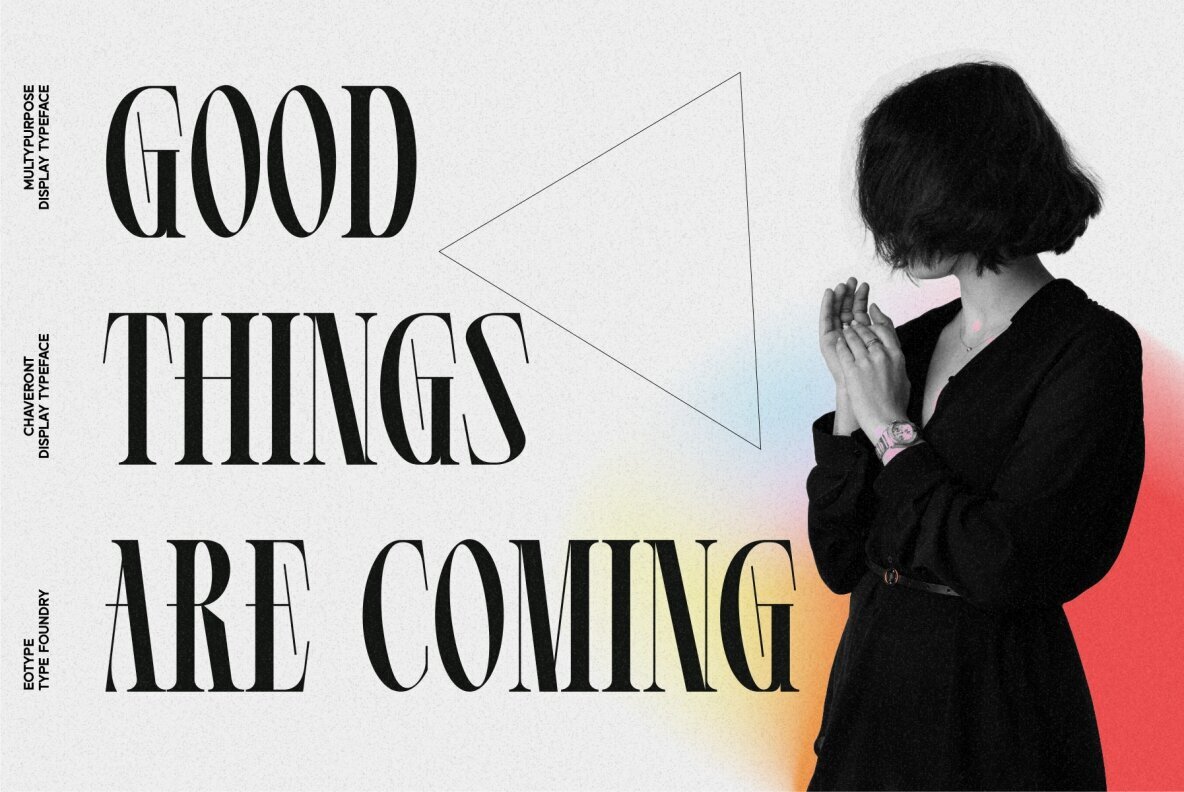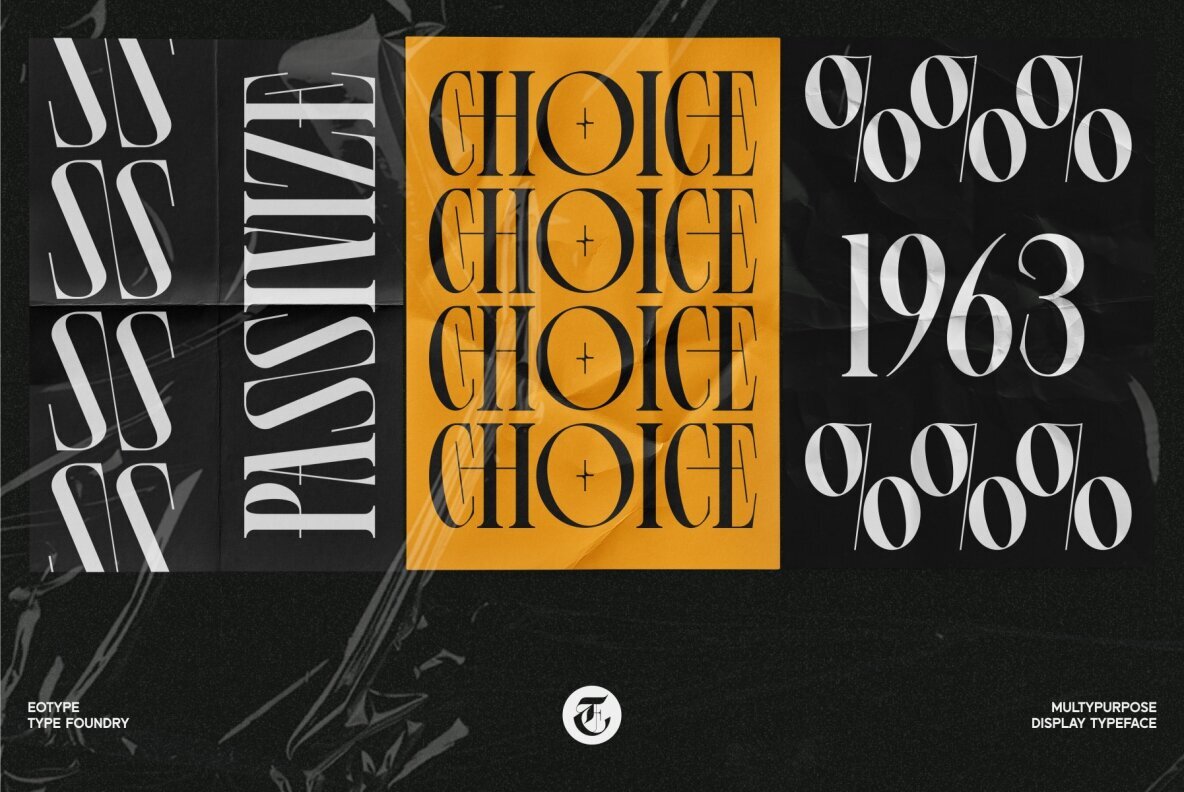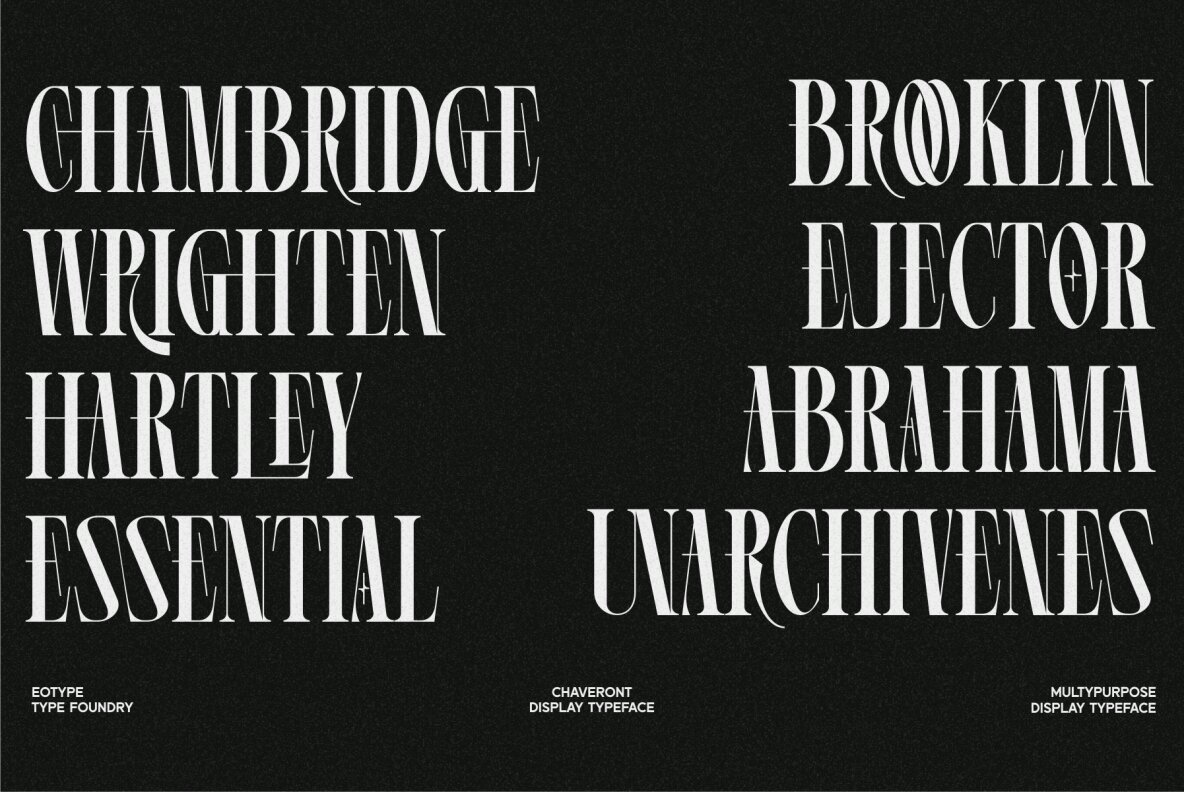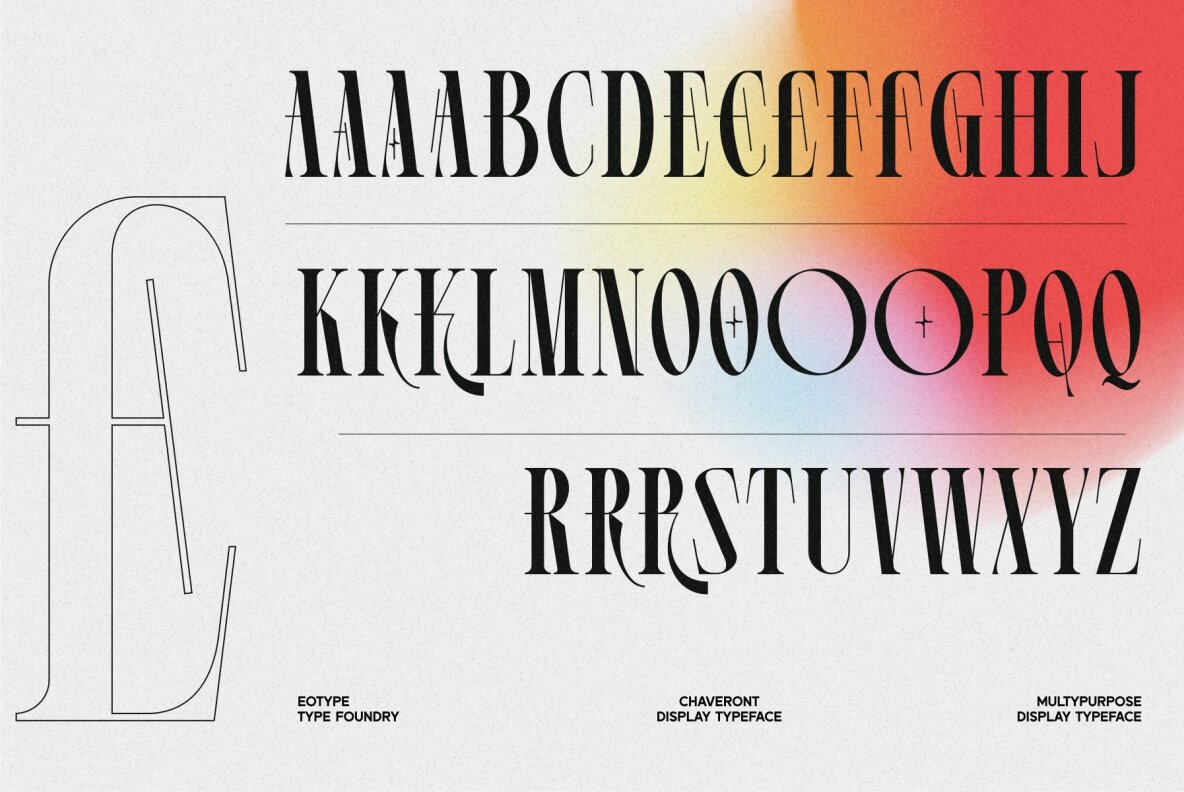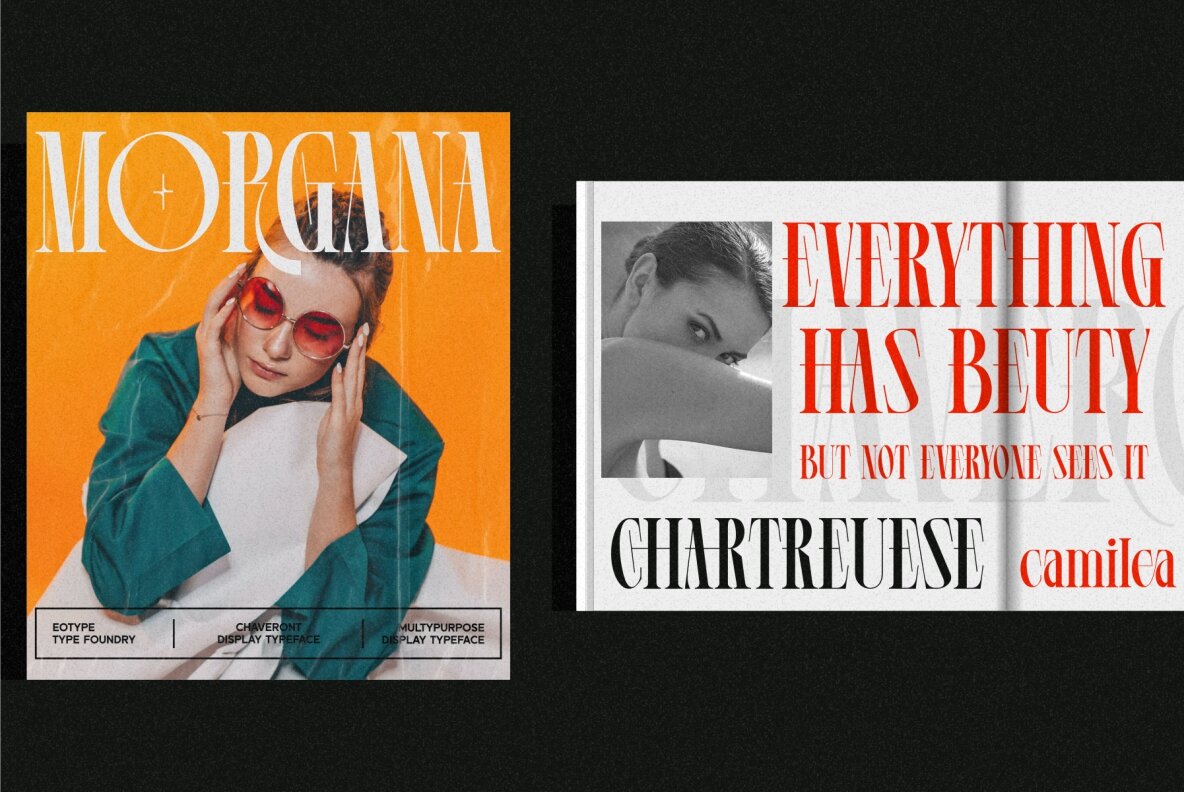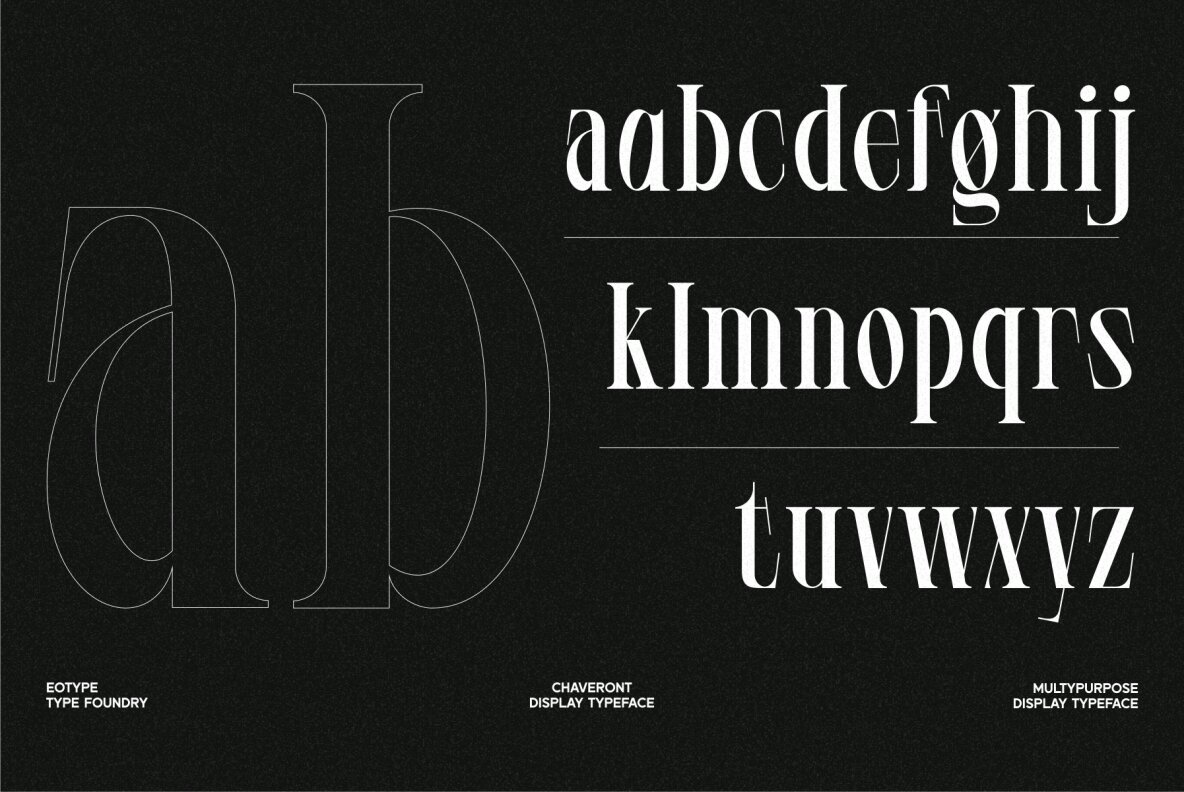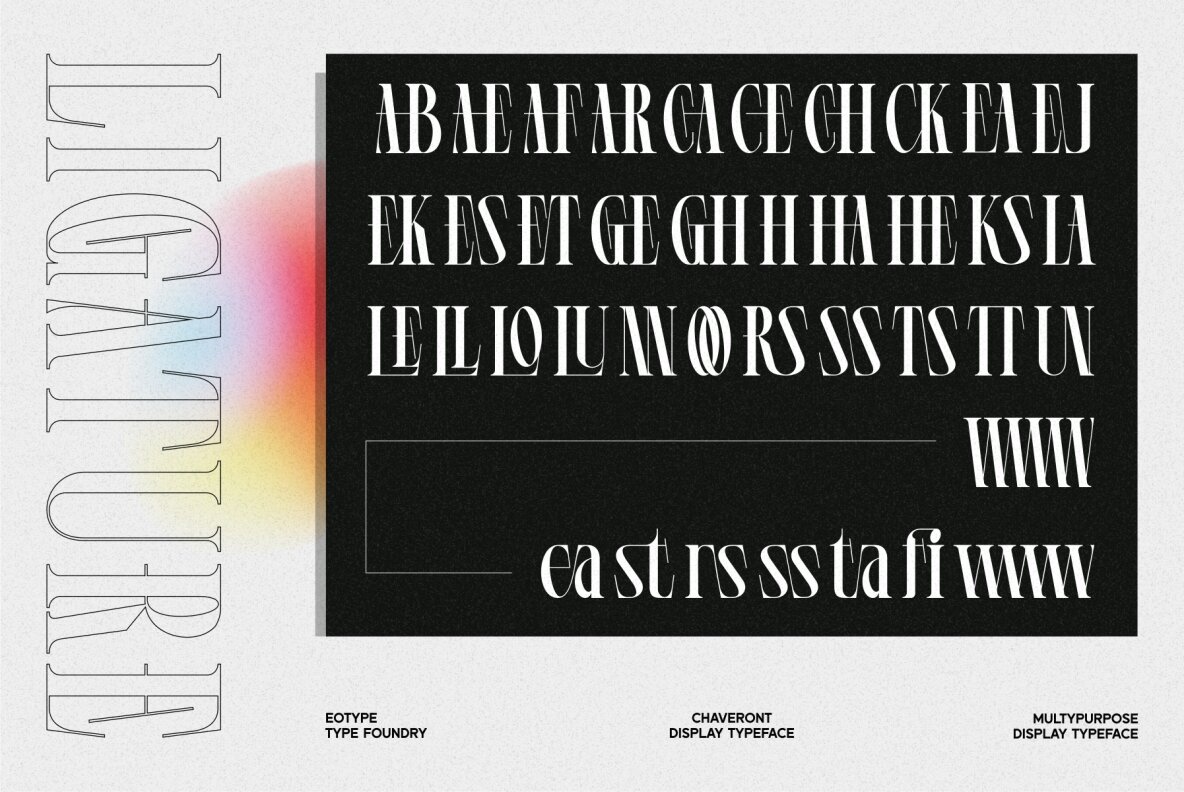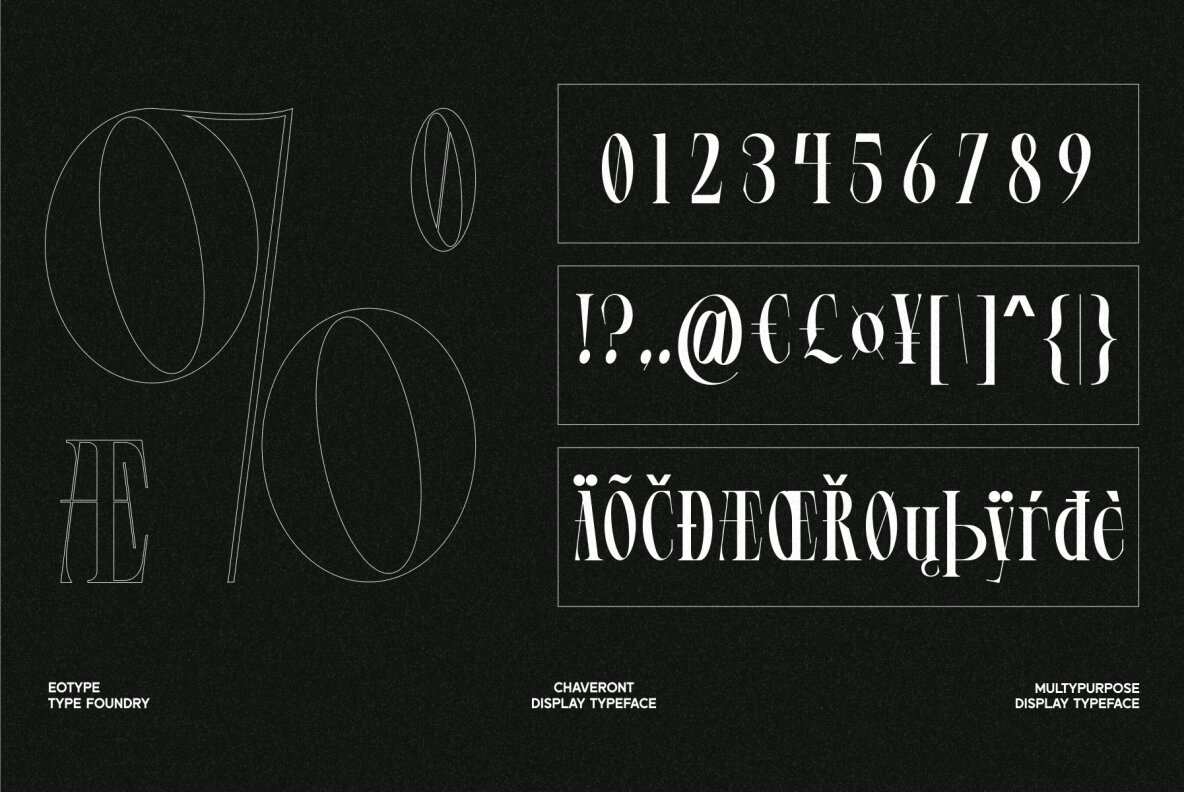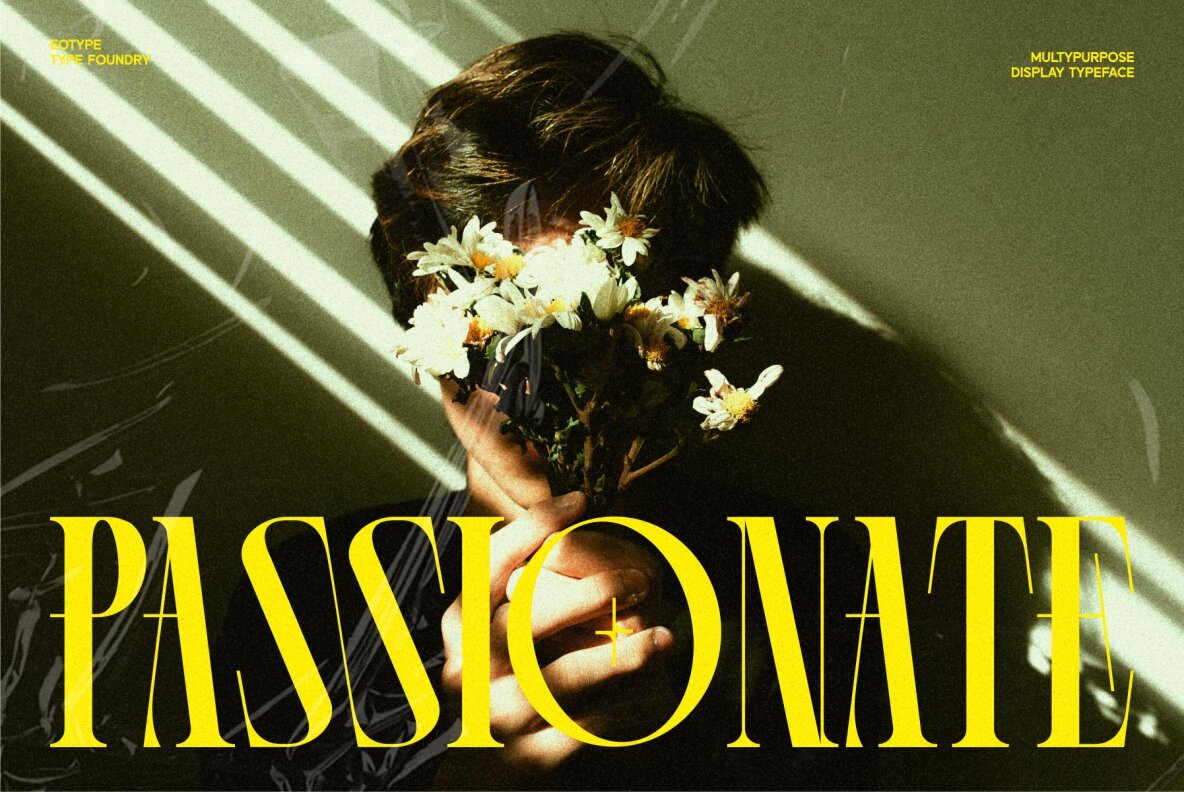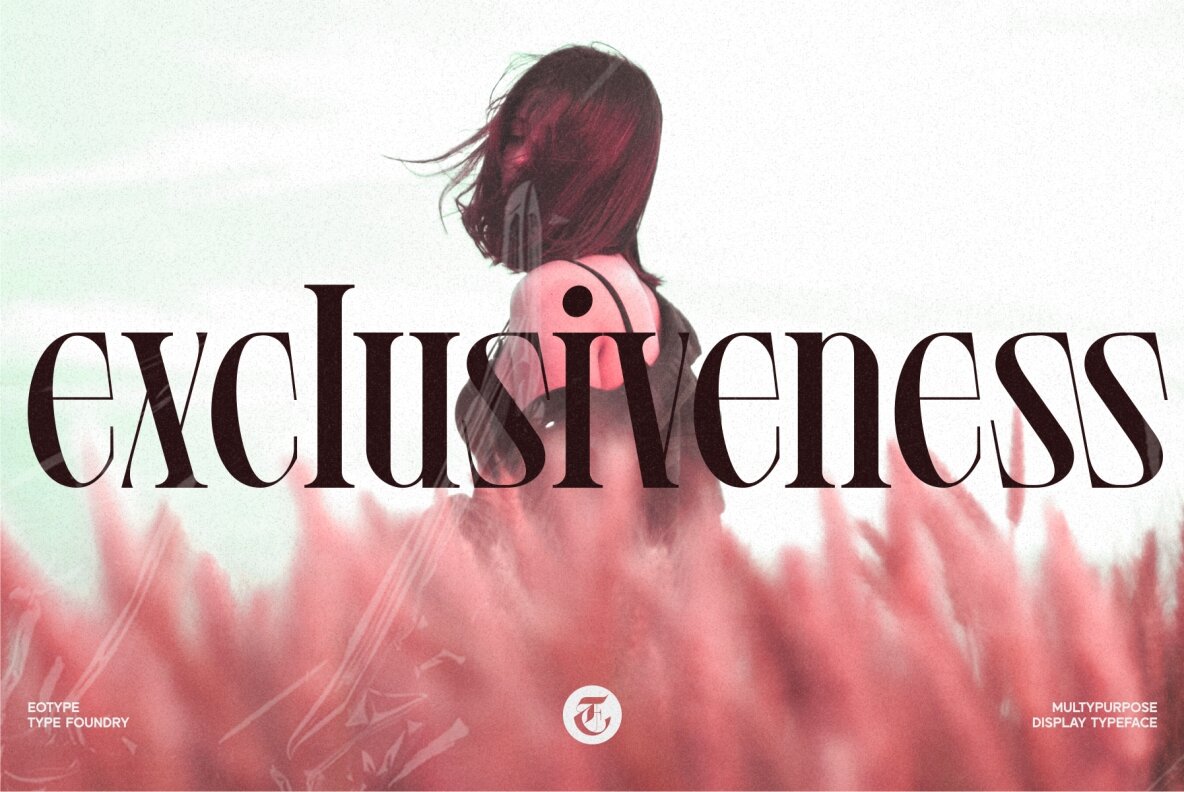
Chaveront Font
CHAVERONT Regular
Chaveront is a masterful creation by eotype Studio, embodying beauty and strength in a condensed form. Its unique style makes it a perfect choice for crafting distinguished logotypes and captivating magazine layouts. Suitable for a range of design projects, Chaveront offers both a modern flair and enduring elegance. With its array of alternate characters and ligatures, Chaveront adapts seamlessly to various creative endeavors. Its versatility ensures that designers have the tools they need to bring their visions to life.Chaveront: A Refined Condense Font With Distinctive Appeal